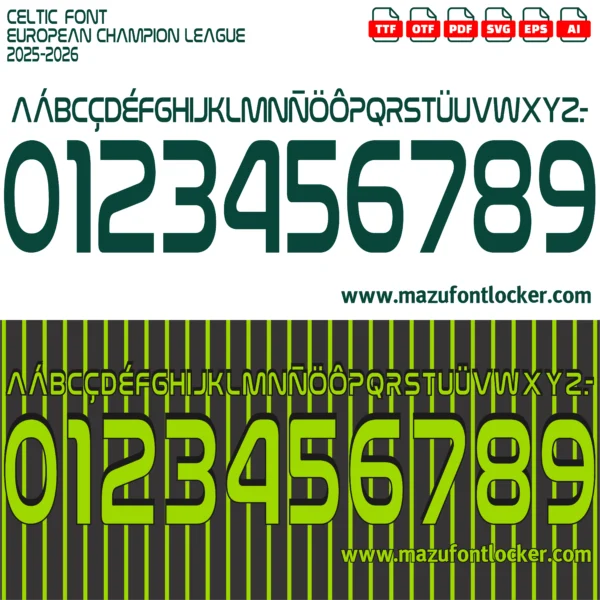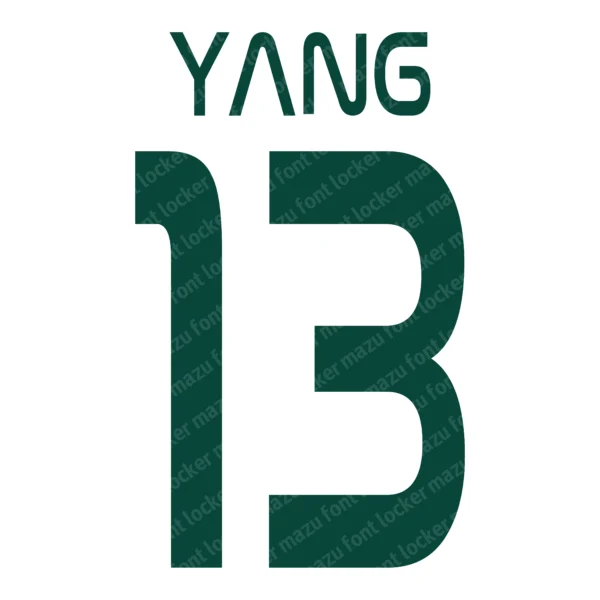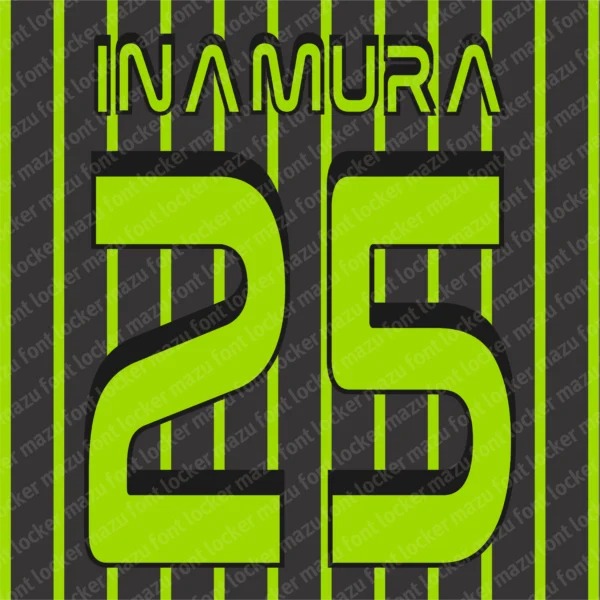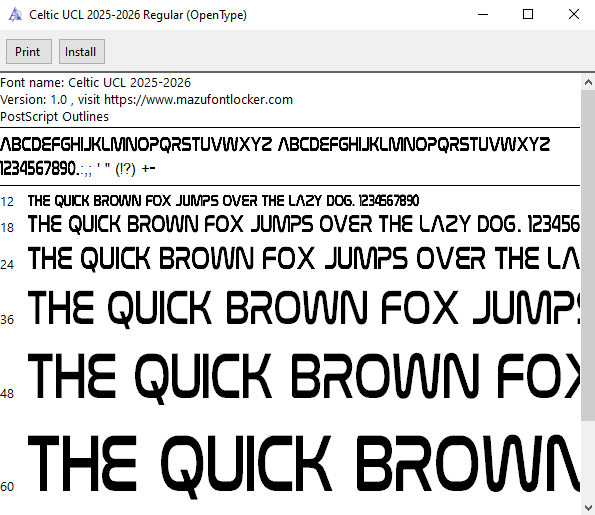
Celtic Champions League 2025-2026 Font Vector – Legendary Bhoys Victorious Masterpiece
This premium font captures the commanding, iconic, majestic, and battle-ready lettering that embodies the unstoppable Celtic spirit — delivering raw Glasgow fire, explosive winning energy, relentless never-say-die mentality, tactical supremacy, and legendary Bhoys warrior grit.
Celtic Champions League 2025-2026 Font Vector – Authentic Hoops Typeface
The Celtic Champions League 2025-2026 Font Vector is a premium typeface that accurately recreates the official match lettering worn by Celtic FC during their 2025-2026 Champions League campaign. This high-quality vector font kit captures the bold, proud, and passionate typography that represents the club’s rich heritage, attacking spirit, and legendary European journey of The Bhoys.
Designed for professional designers and passionate Celtic supporters, the Celtic Champions League 2025-2026 Font Vector delivers perfect authenticity for creating realistic jersey mockups, fan merchandise, matchday posters, social media graphics, and Scottish football content. It pairs beautifully with the iconic green and white Hoops kit, one of the most recognizable club identities in European football.
Why Choose Celtic Champions League 2025-2026 Font Vector
This font stands out because of its sharp vector precision and strong club identity. Every letter and number is crafted to match the exact style used on the players’ shirts during Celtic’s 2025-2026 Champions League season. Whether you are creating realistic kit templates or exciting Hoops-themed content, the Celtic Champions League 2025-2026 Font Vector gives your designs that authentic Celtic Park atmosphere.
The letterforms in the Celtic Champions League 2025-2026 Font Vector are bold, clean, and highly readable. The strokes feature elegant geometric construction combined with modern athletic styling and traditional Celtic flair, creating a professional appearance that stands out on jerseys while preserving Celtic’s legendary football heritage and European competitiveness.
The numerals feature strong curves and sharp, precise edges, delivering a confident and premium appearance. This vector design ensures flawless scalability and excellent legibility across both print and digital applications.
• Full uppercase A–Z and numbers 0–9 in authentic Celtic Champions League 2025-2026 style
• Special Celtic FC crest glyph – Press the “:” (Colon mark) symbol to insert the crest
• Multilingual Latin character support including English and special characters
• Includes the exact crest glyph placement used beneath player numbers
Celtic Champions League 2025-2026 Season
The 2025-2026 Champions League season sees Celtic FC continue their proud European campaign under their manager, bringing the passion of Glasgow to the biggest stage in club football. The Hoops squad featuring stars like Kyogo Furuhashi, Callum McGregor, and emerging talents showcases their trademark fighting spirit and attacking flair at Celtic Park and across Europe.